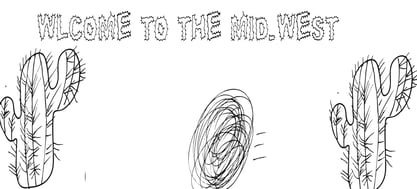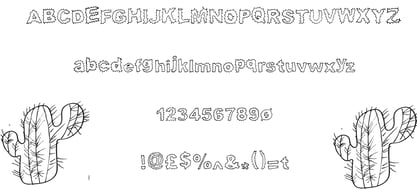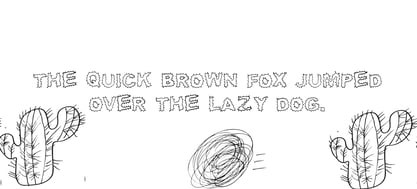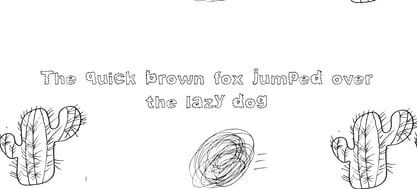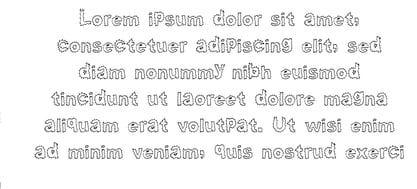
Cactus Picture
by Jointype
The Cactus Picture Font Family was designed by Jeremy Gill-Praba and published by Jointype. Cactus Picture contains 1 styles. More about this family
This font is based on the westerns i used to watch as a kid."Cactus Picture" is a decorative, nature-inspired font that incorporates elements of the desert and plant life into its design. Each letter is crafted with unique, organic shapes, often resembling the spiky, angular forms of cacti and desert plants. The font exudes a rustic, earthy vibe, blending natural textures with a modern typographic style.
Ideal for projects related to nature, travel, or southwestern aesthetics, "Cactus Picture" brings a bit of the wild, rugged charm of the desert into any design. Whether used for logos, posters, or branding materials, it adds a distinctive, quirky flair that feels both grounded and adventurous. This font is perfect for designs that aim to convey themes of exploration, resilience, and natural beauty.
Designers: Jeremy Gill-Praba
Foundry: Jointype